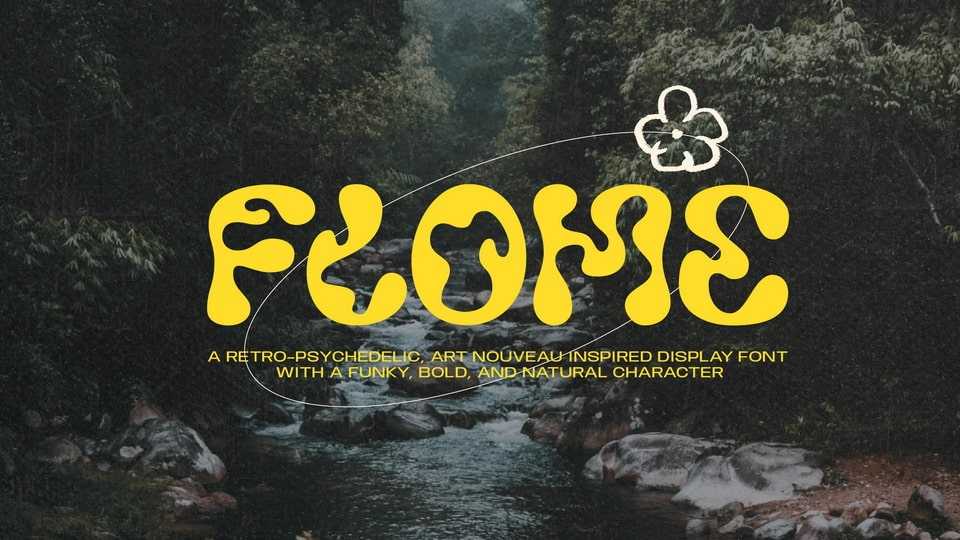
Download Flome font, a retro-psychedelic, art nouveau inspired display typeface with a funky, bold, and organic character. Flome is ideal uses include poster text, book titles, logotypes, billboards, album art, and other creative expressions.